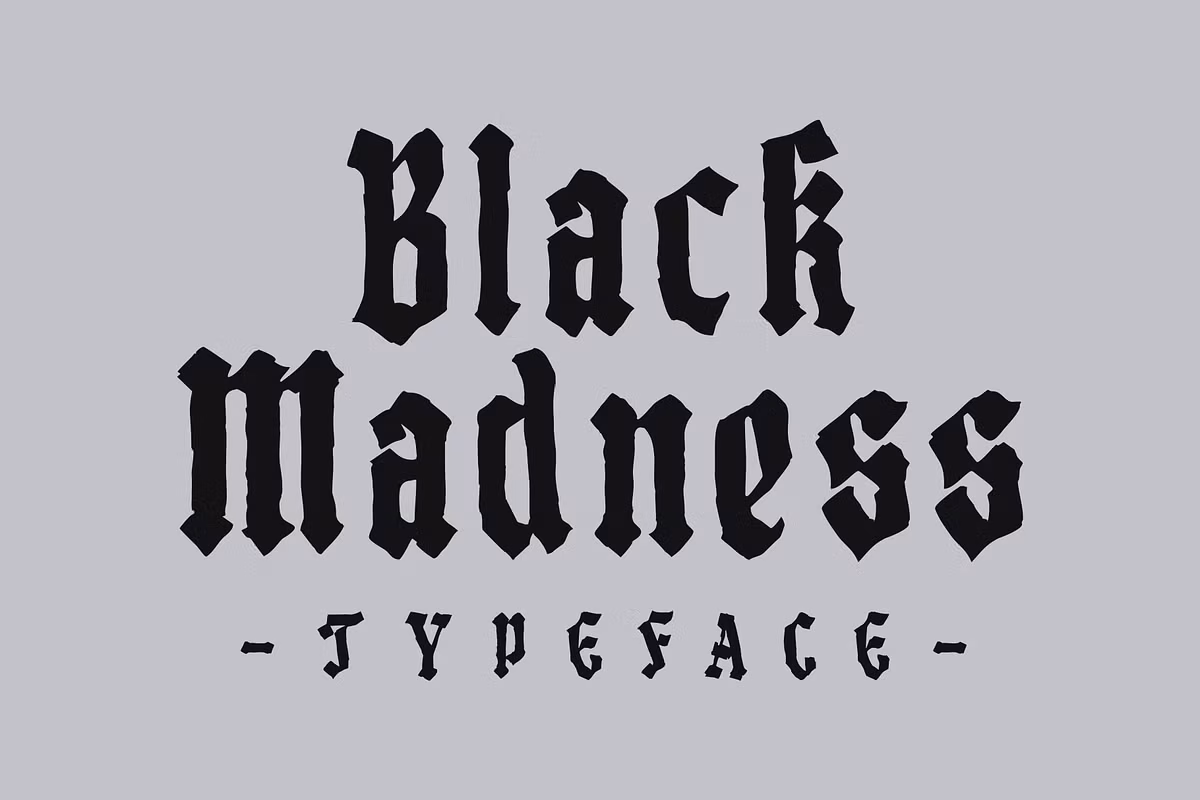
Black Madness Font Free Download is a bold, gritty, and edgy display typeface that delivers high impact and rebellious flair. With aggressive letterforms, sharp angles, and a rough texture, this font is perfect for music posters, horror themes, streetwear branding, gaming graphics, and bold editorial layouts that demand attention.
Designed to make a statement, Black Madness Font Free Download brings chaos and character to your typography, making it ideal for creative projects that break the mold. Its intense style works best in headlines, logos, and design elements where attitude and drama are key.